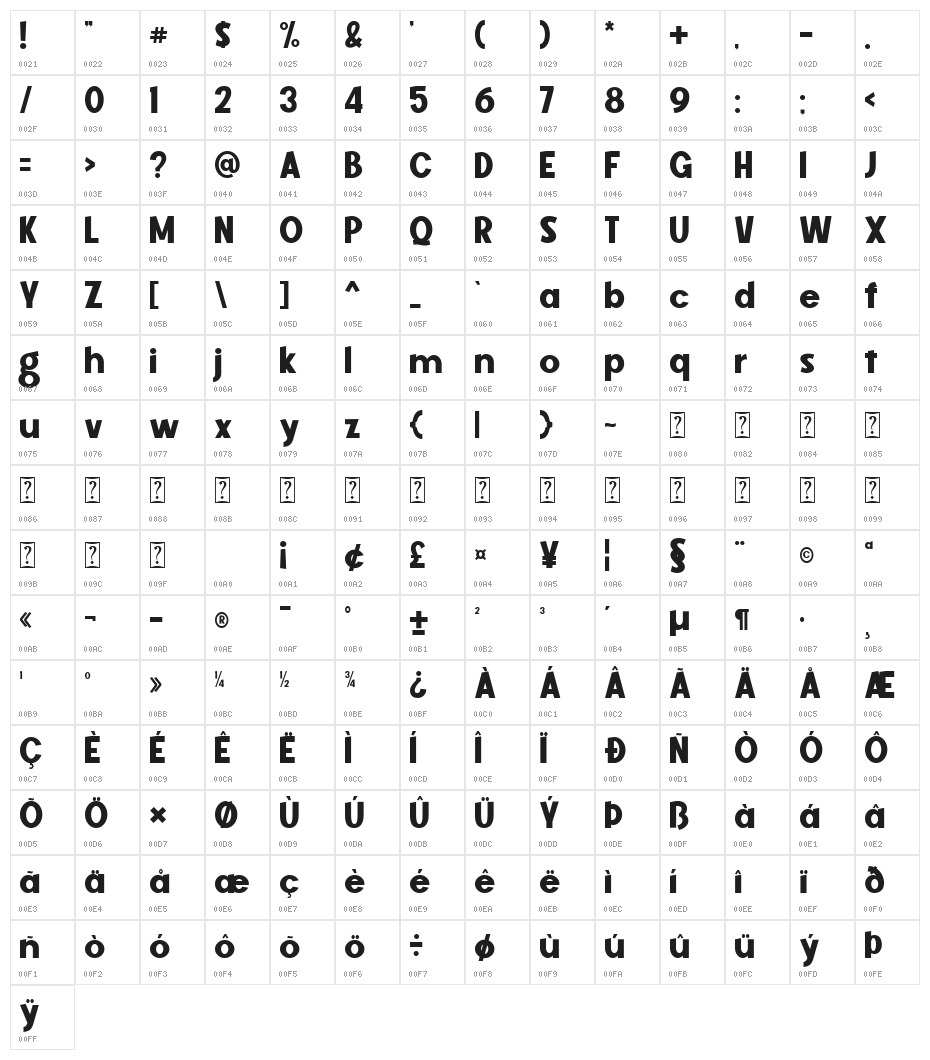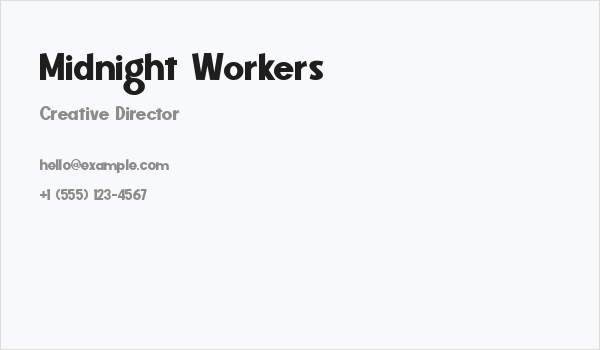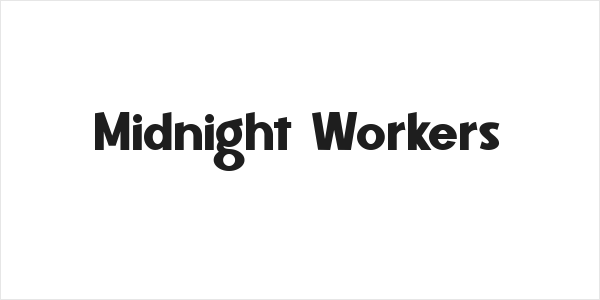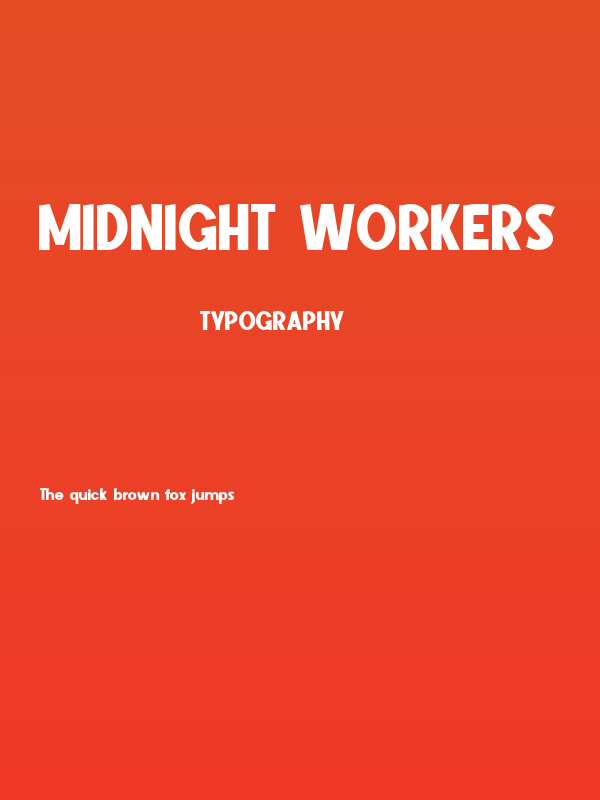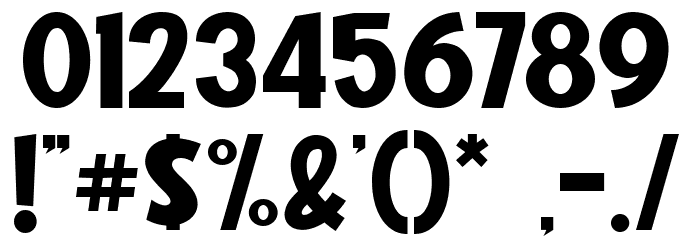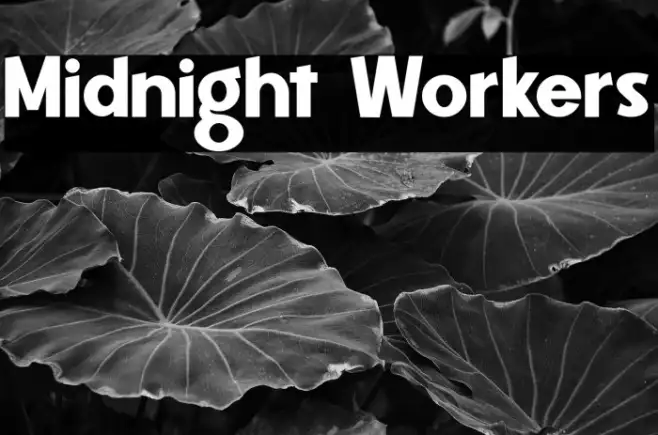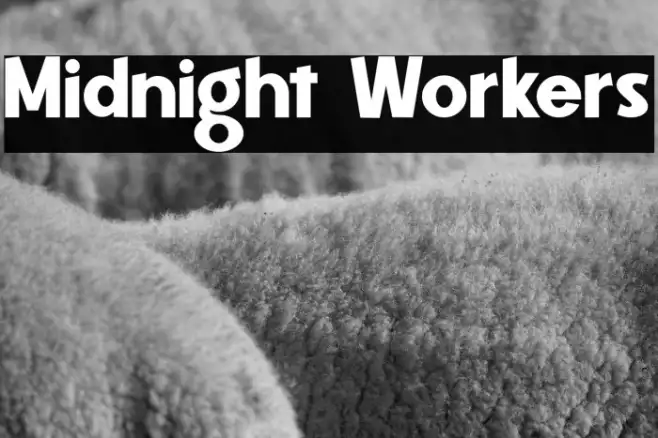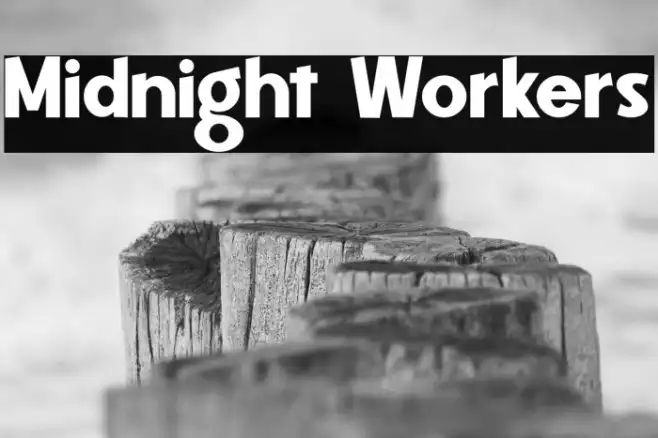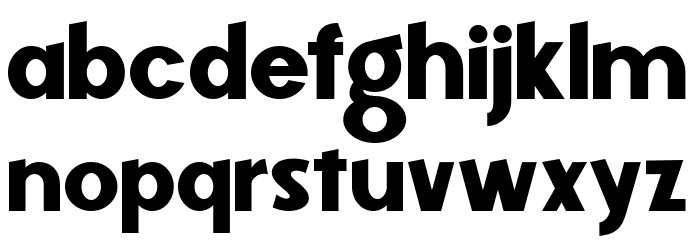
Midnight Workers Font
Midnight Workers Description
This font features bold, geometric letterforms with a strong presence, making it ideal for attention-grabbing designs. The uppercase letters are particularly striking, with a uniform height and width that convey a sense of stability and strength. The lowercase letters maintain the boldness of the uppercase, with rounded edges that add a touch of softness to the overall look. The numerals are clear and easy to read, matching the bold style of the alphabet. Special characters are well-integrated, maintaining the font's cohesive appearance. The overall design is modern and assertive, suitable for a variety of applications where impact is desired.
| Proposed Projects | Ideal for posters, headlines, branding, and any design requiring a strong visual impact. |